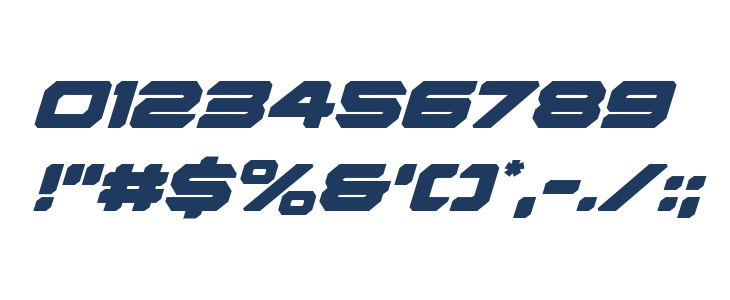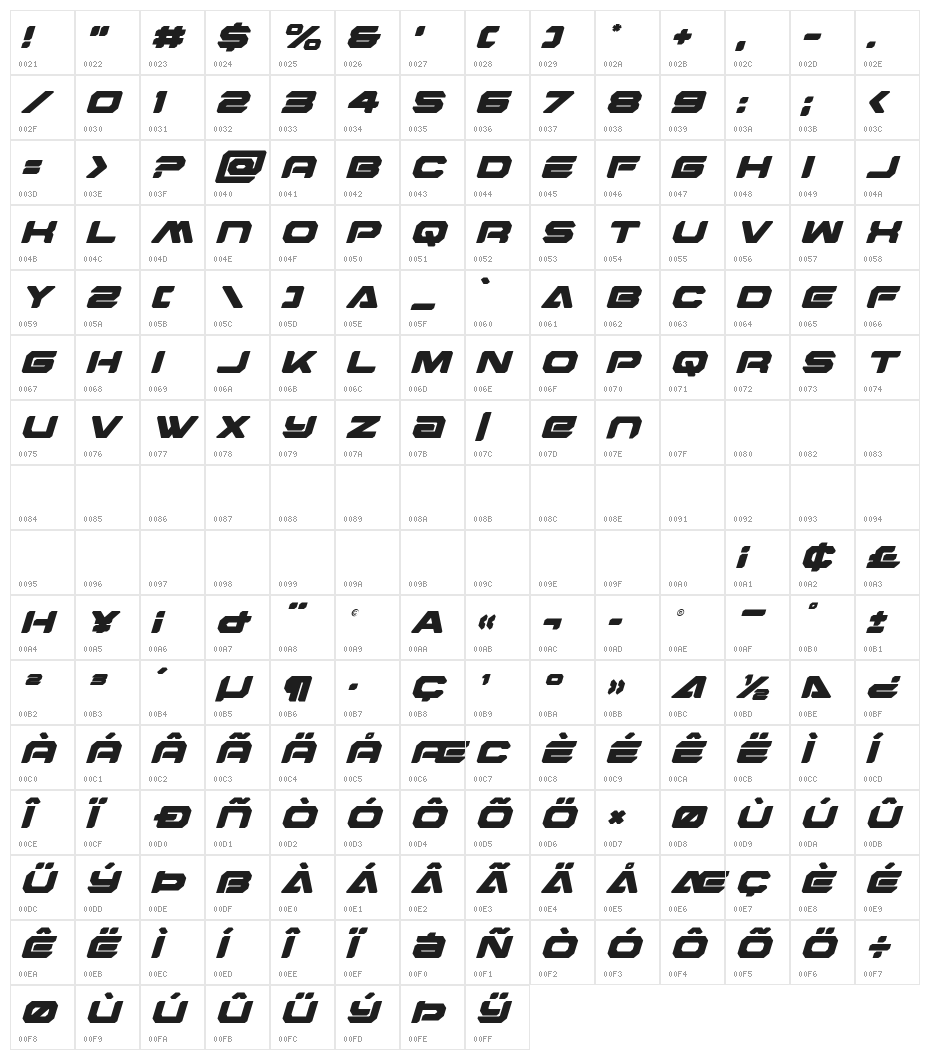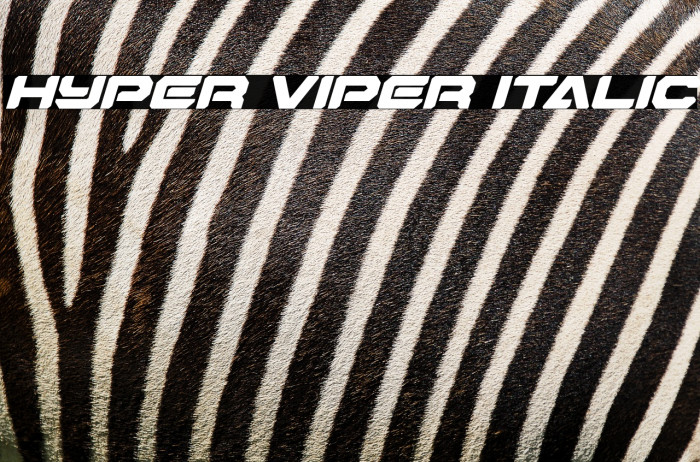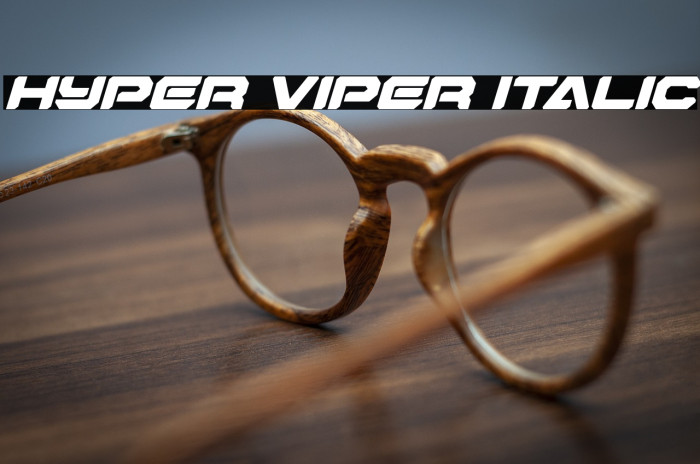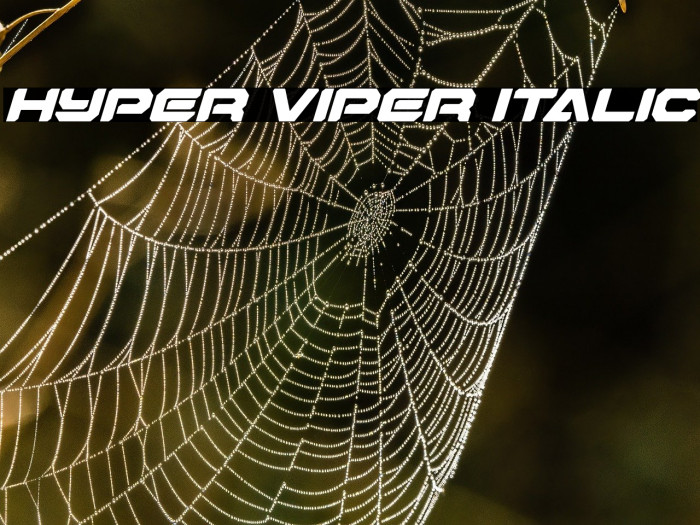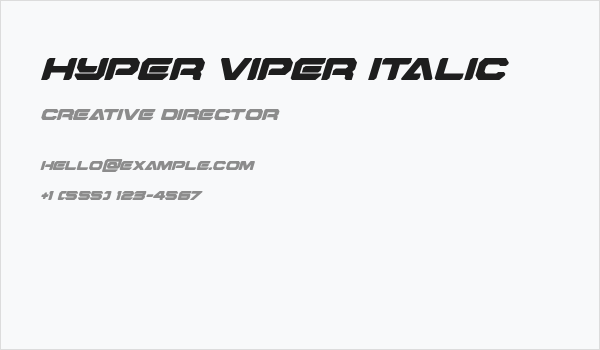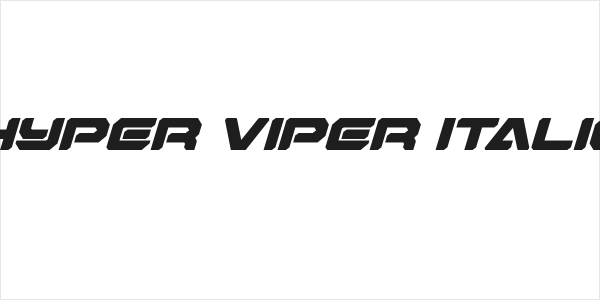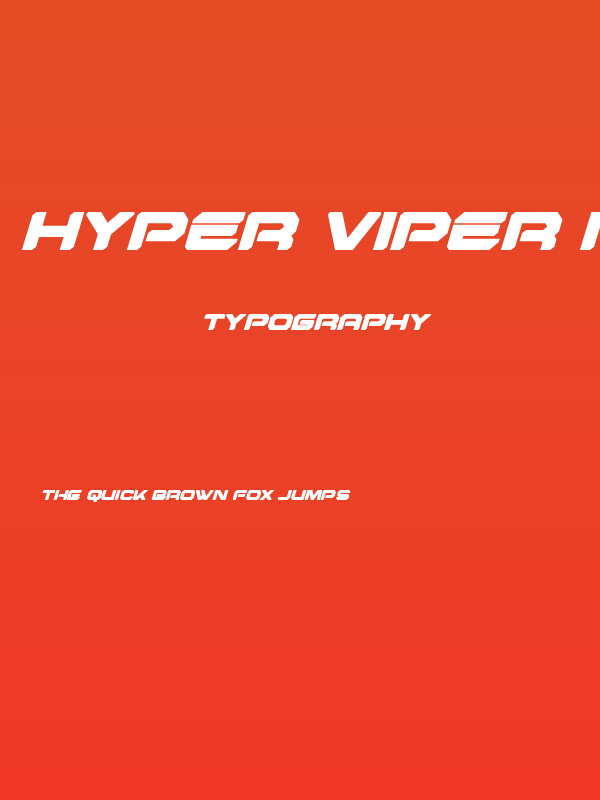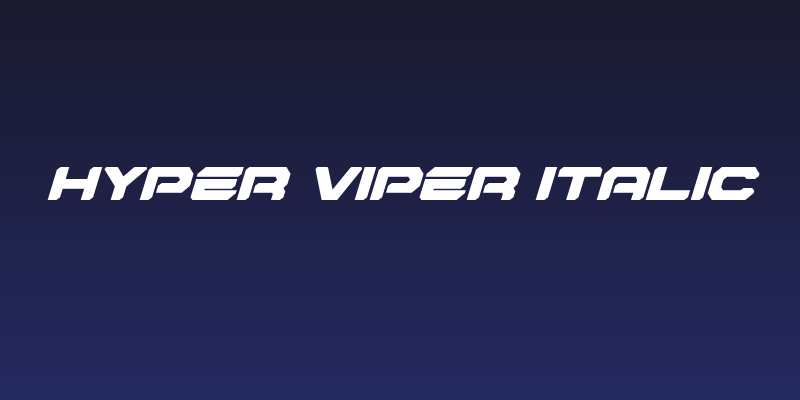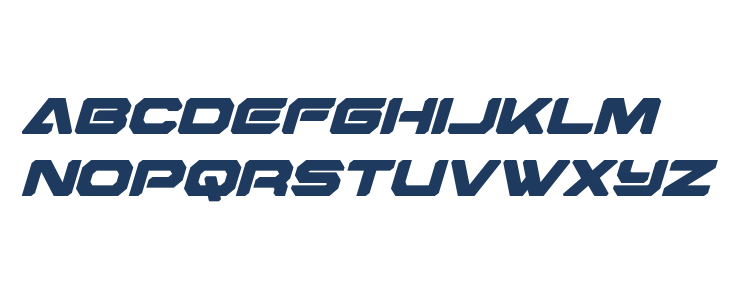
Hyper Viper Italic Font
Hyper Viper Italic Description
This font features a bold, italicized style with a futuristic and dynamic appearance. The characters are slanted, giving a sense of motion and speed. The strokes are thick and consistent, providing a strong visual impact. The design is geometric with sharp angles and a sleek finish, making it ideal for modern and tech-oriented projects. The uppercase and lowercase letters maintain a uniform style, while the numbers and special characters complement the overall aesthetic. This font is perfect for creating attention-grabbing headlines or logos that require a bold statement.
| Proposed Projects | Ideal for tech branding, sports team logos, video game titles, and futuristic-themed posters. |